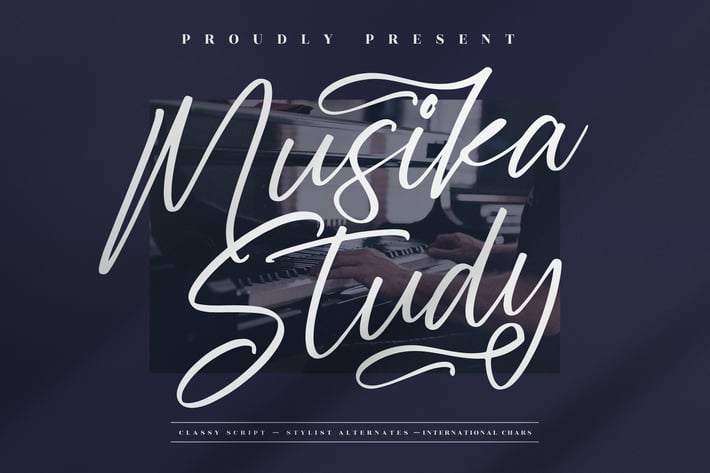
Musika Study Classy Script Font is an elegant script typeface with smooth, flowing strokes that radiate sophistication. Inspired by music and artistic expression, it combines stylish alternates with a refined handwritten charm, making it ideal for creative and professional projects alike.
+ Classy handwritten script with stylistic alternates
+ Elegant curves and flowing strokes
+ Branding & logo design
+ Music-themed projects & posters
+ Wedding invitations & event stationery
+ Fashion & lifestyle content
+ Social media promotions
Compose elegance into your projects with Musika Study — a classy script where rhythm meets refined design.